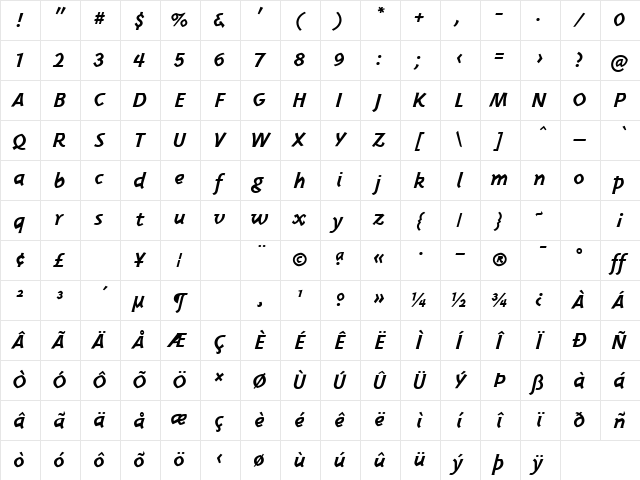
TriplexItalicBoldLining Bold Italic
Design Context for TriplexItalicBoldLining
TriplexItalicBoldLining is a composed and adaptable typeface that performs quietly and consistently across a wide range of design contexts. The slanted form adds forward momentum and visual energy. Its bold stroke weight gives it real presence on the page.
Pro Tip: Use TriplexItalicBoldLining for emphasis, pull quotes, and subheadings where its slanted energy can add rhythm to the layout.